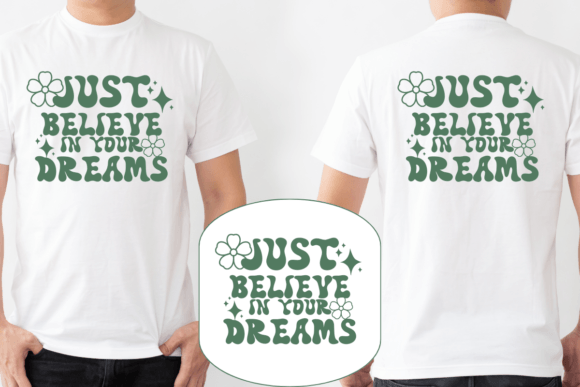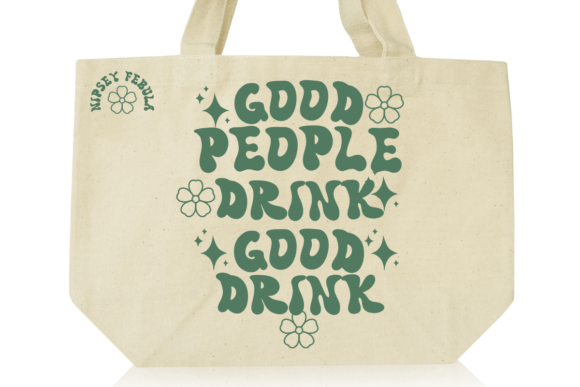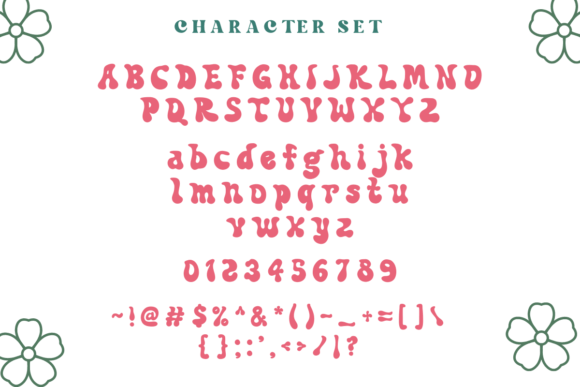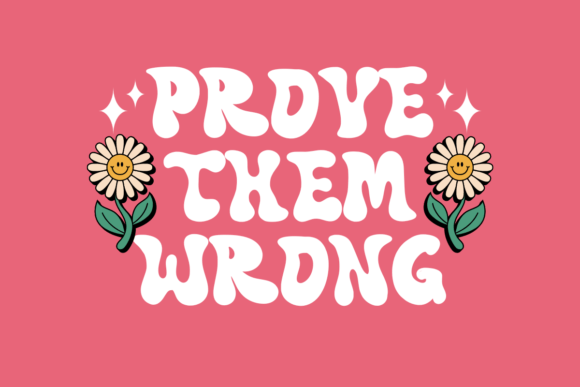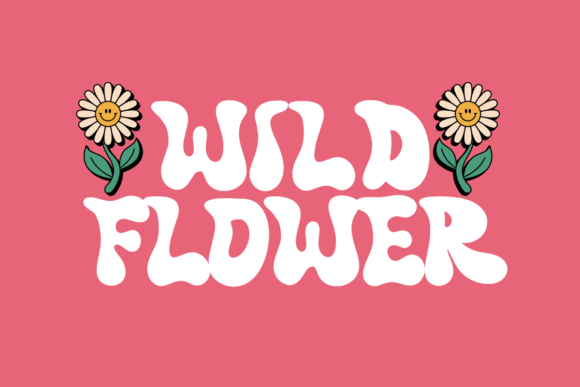
Introduction to Nipsey Febula Font
Nipsey Febula Hippie is a fun and retro font, it’s perfect for designs that need a playful, cheery accent.
Nipsey Febula is suitable for book covers, posters, packaging, merchandise, logotypes, and many more .
Key Features of Nipsey Febula Font
Why Choose Nipsey Febula Font?
Nipsey Febula Font offers exceptional quality and versatility, making it a valuable addition to your design toolkit. Whether you’re creating for personal projects or commercial use, Nipsey Febula Font delivers professional results.